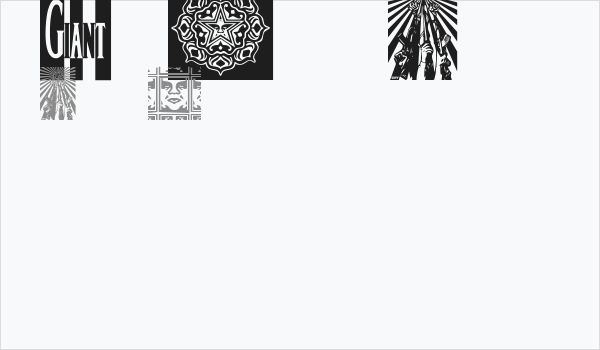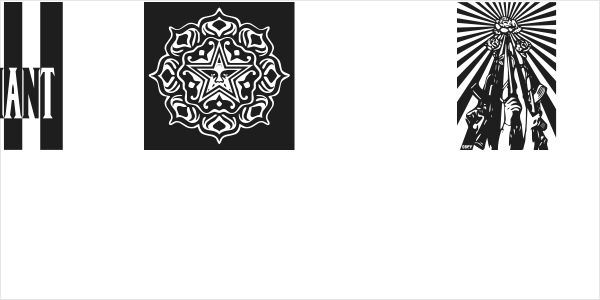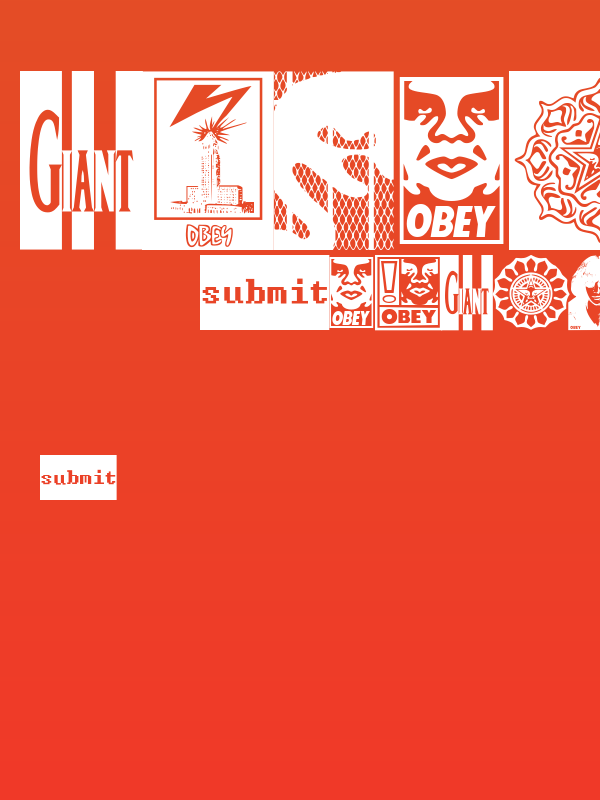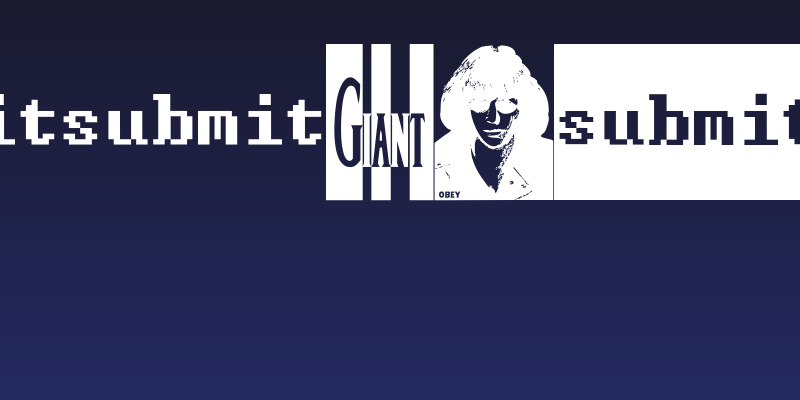
ObeyAssortyCaps Font
ObeyAssortyCaps Description
This is not a valid font. The image consists of various graphic elements and illustrations rather than a cohesive set of typographic characters. The elements include stylized text and imagery that are more decorative and artistic in nature, lacking the uniformity and structure typical of a standard font.
| Use Case | Artistic projects, Posters, Branding |
| Proposed Projects | This graphic style could be used for artistic projects, posters, or branding that requires a unique and bold visual statement. |